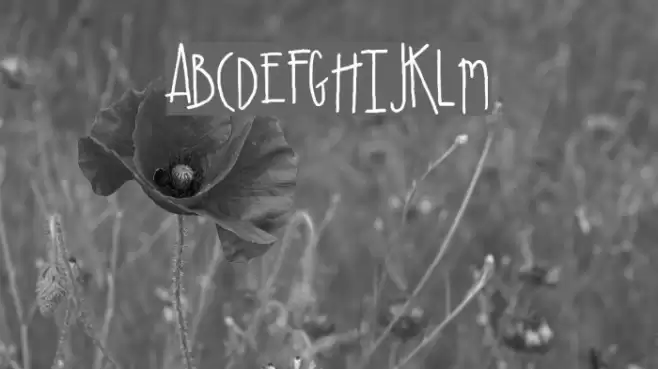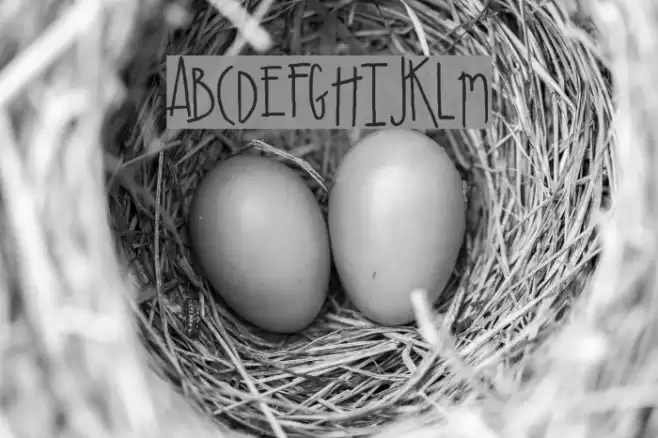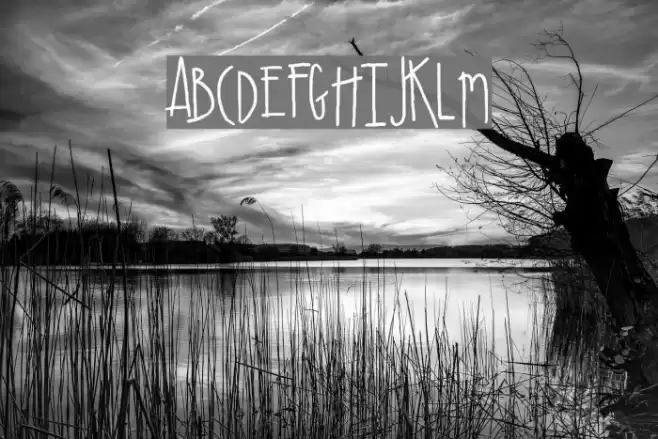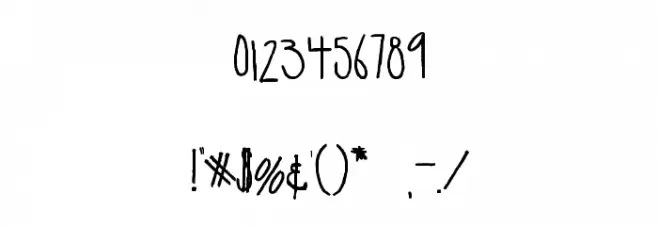
SA_Cacti Font
SA_Cacti Description
This font features a whimsical and playful design, characterized by its tall, narrow letterforms and irregular strokes that give it a hand-drawn appearance. The uppercase and lowercase letters maintain a consistent style, with slight variations that add to its quirky charm. The numbers and special characters follow the same playful aesthetic, making it suitable for creative and informal projects. The overall look is casual and artistic, perfect for adding a touch of personality to any design.
A whimsical, hand-drawn font with tall, narrow letterforms and playful strokes from Uncategorized fonts.
- Proposed Projects: Ideal for children's books, creative posters, greeting cards, and playful branding.